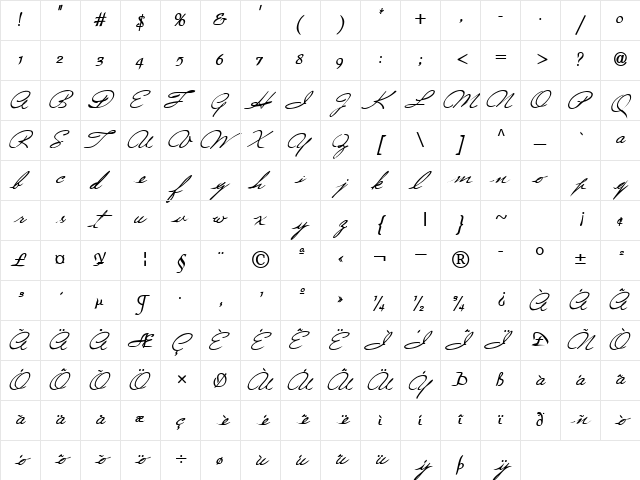
Complete WishingType3 Bold glyph index. Displaying only characters natively supported by WishingType3 Bold font.
WishingType3 is a composed and adaptable typeface that performs quietly and consistently across a wide range of design contexts. Its bold stroke weight gives it real presence on the page.